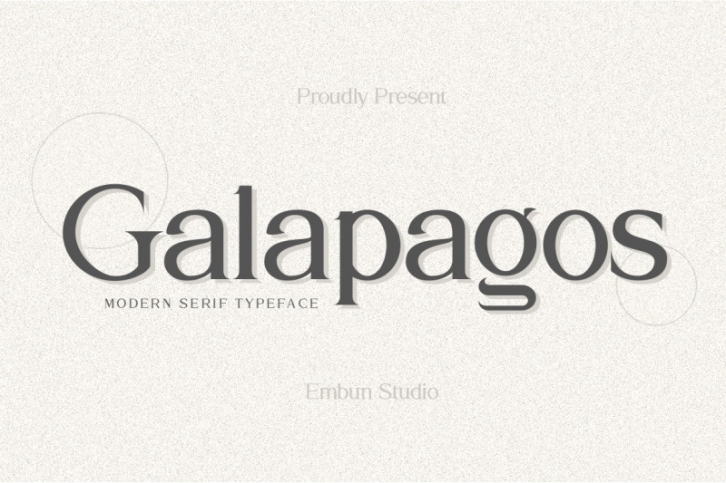
Welcome to Galapagos !!
Why we give it name "Galapagos" ??
because we are getting inspiration from Galapagos Island
in there you'll find a beauty and serenity, so are this font,
you'll find a beauty, luxury and serenity when you use it for your project